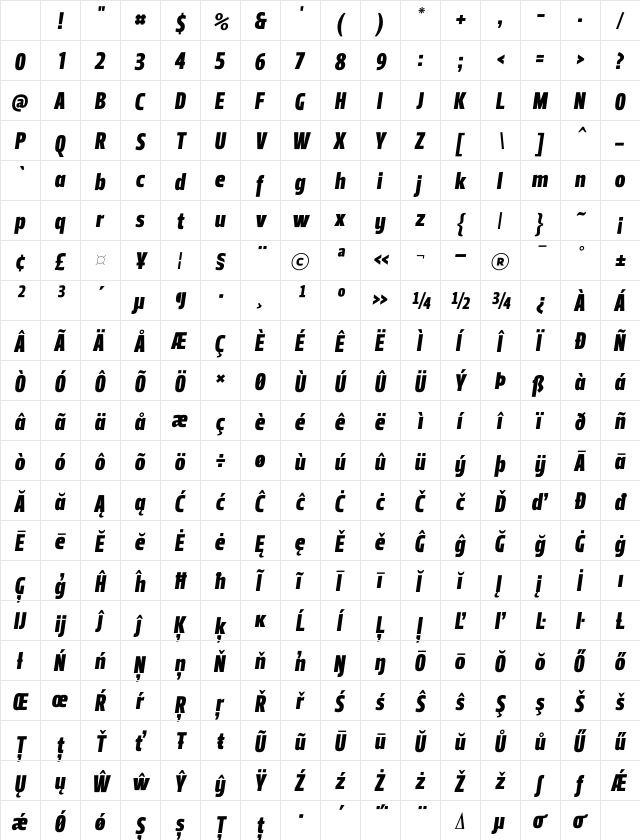
Leitura Headline is a composed and adaptable typeface that performs quietly and consistently across a wide range of design contexts. The slanted form adds forward momentum and visual energy.
Pro Tip: Use Leitura Headline for emphasis, pull quotes, and subheadings where its slanted energy can add rhythm to the layout.